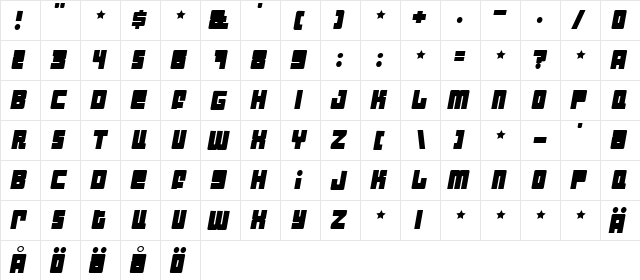
Industrial Decapitalist Italic
Design Context for Industrial Decapitalist Typeface
Industrial Decapitalist offers clean, dependable letterforms without strong stylistic allegiance, making it a practical choice for designers who need flexibility. The dynamic lean of this cut emphasises speed and emphasis in any layout.
Pro Tip: Use Industrial Decapitalist for emphasis, pull quotes, and subheadings where its slanted energy can add rhythm to the layout.